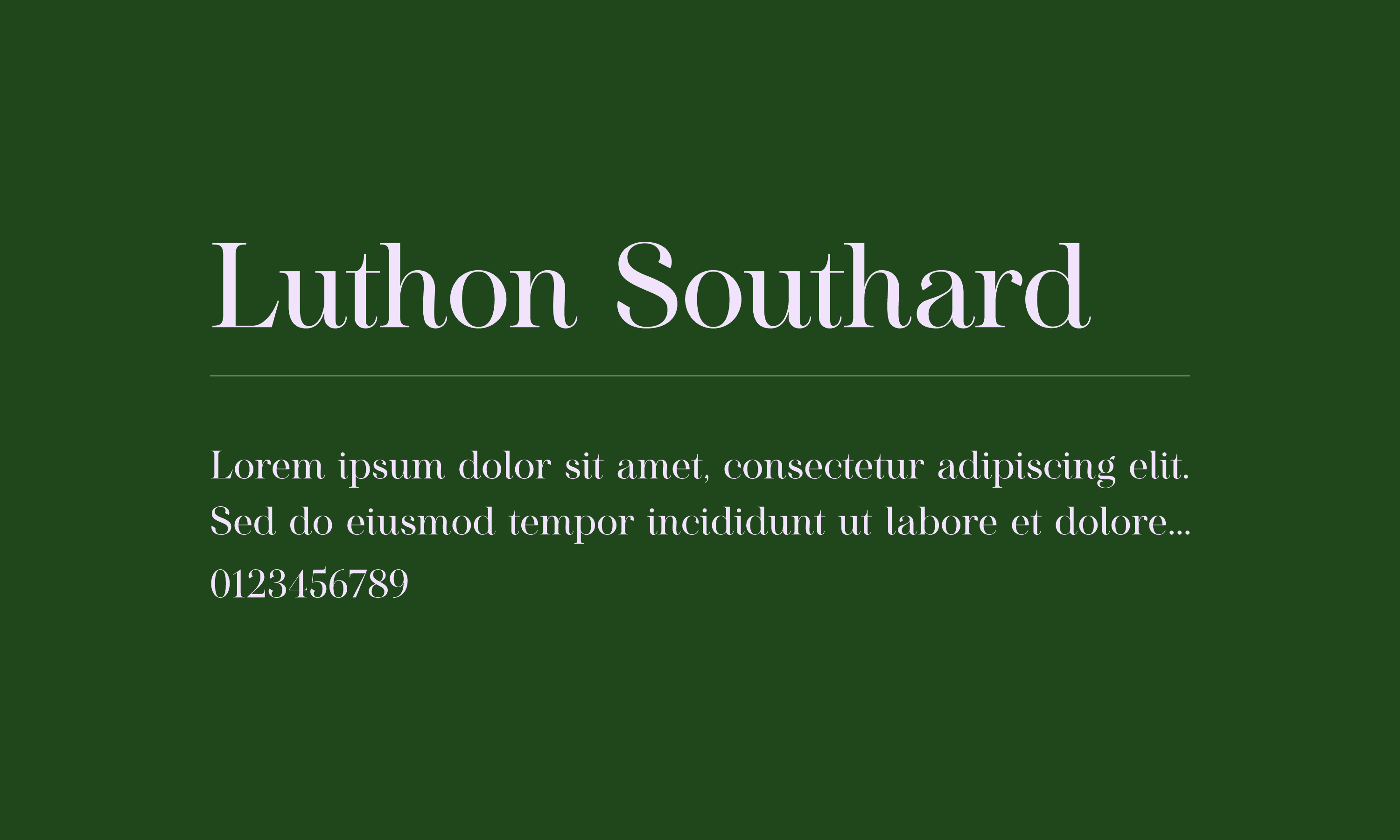
Luthon Southard
Luthon Southard is a beautiful dual-font (the file includes a handwritten style), combining a stylish serif typeface with a single-line handwritten style. It is perfect for various occasions such as product packaging, branding projects, magazines, social media, and more.